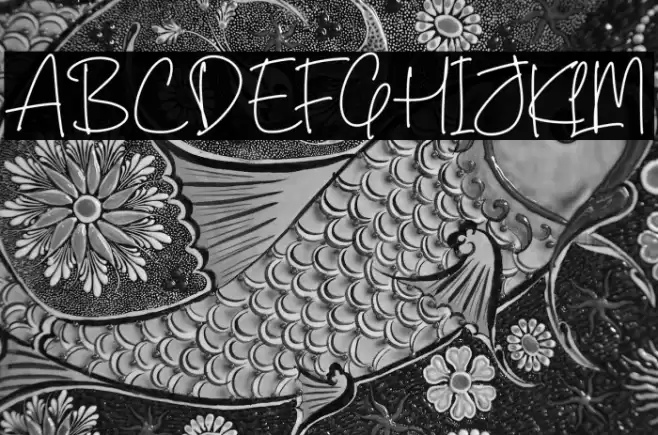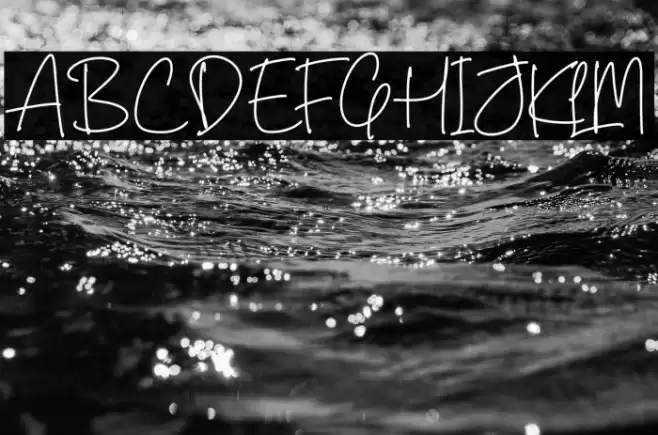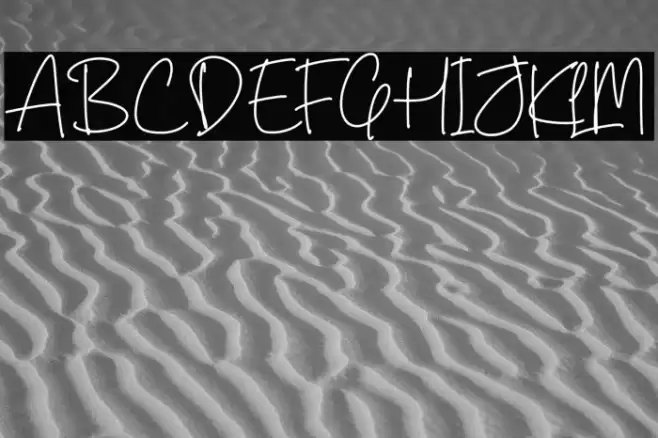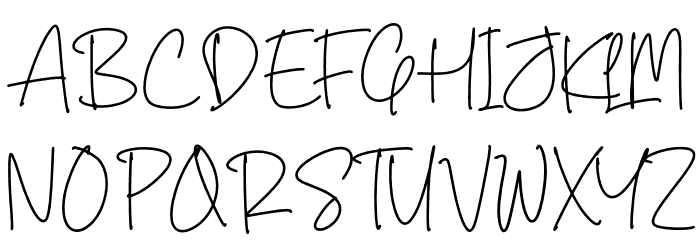
Gatrello Font
Gatrello Description
This font features a casual, handwritten style with a playful and informal appearance. The letters are slightly slanted, giving it a dynamic and lively feel. The strokes are uneven, mimicking the natural flow of handwriting, which adds a personal touch. The uppercase and lowercase letters are well-balanced, maintaining consistency throughout. The numbers and special characters are designed to match the overall style, ensuring a cohesive look. This font is versatile and can be used to convey a sense of friendliness and approachability.
A casual, handwritten font with a playful and informal style from Uncategorized fonts.
- Font: Gatrello
- Proposed Projects: Ideal for greeting cards, personal invitations, casual branding, and social media graphics.
- Overall Style: Casual
- Use Case: Logos, Headlines, Informal text